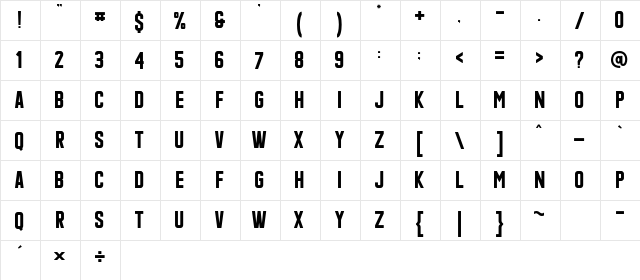
Qonquer Regular
Design Context for Qonquer Typeface
Qonquer offers clean, dependable letterforms without strong stylistic allegiance, making it a practical choice for designers who need flexibility.
Pro Tip: Use Qonquer in both headline and body roles to test its range before committing to a single application.